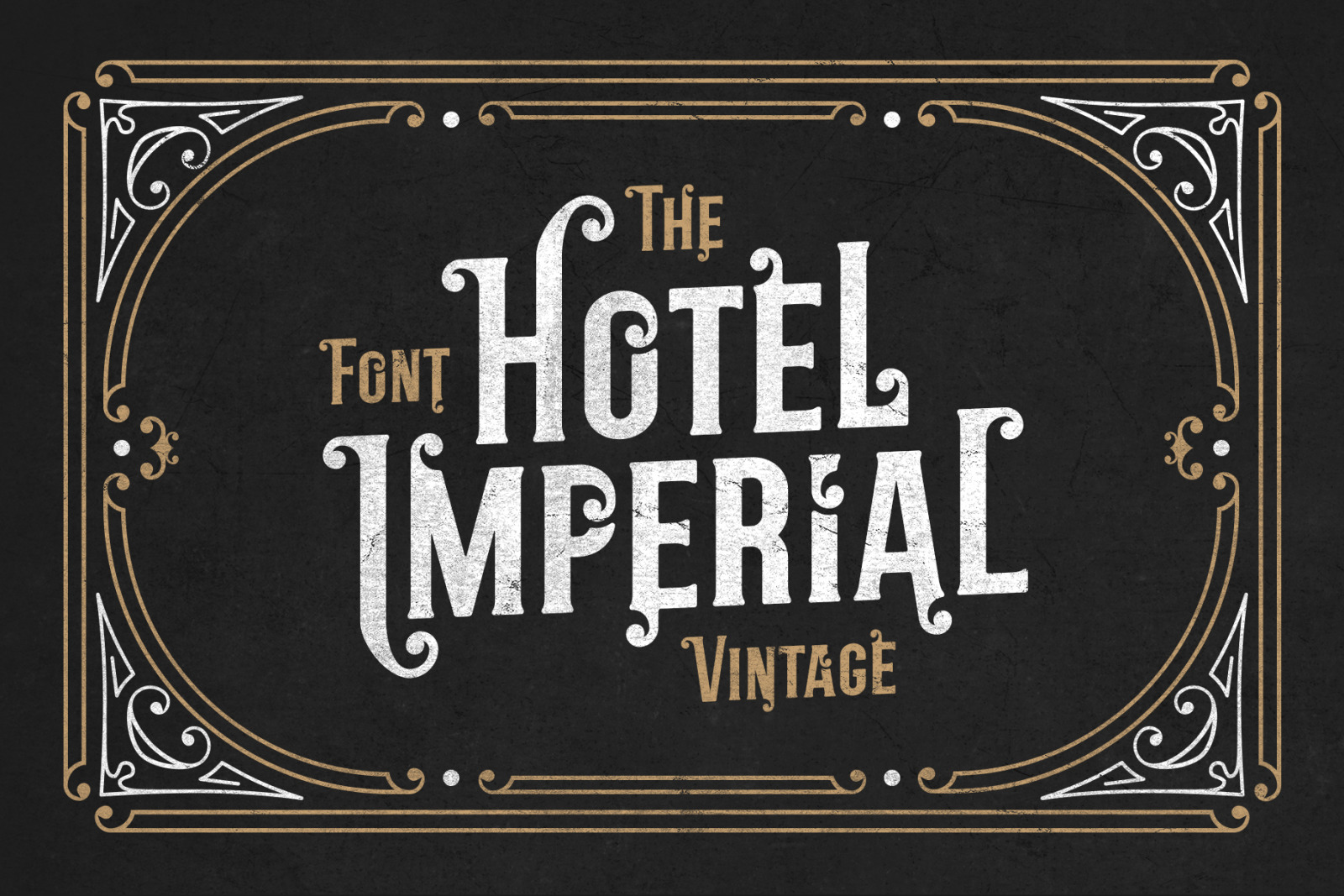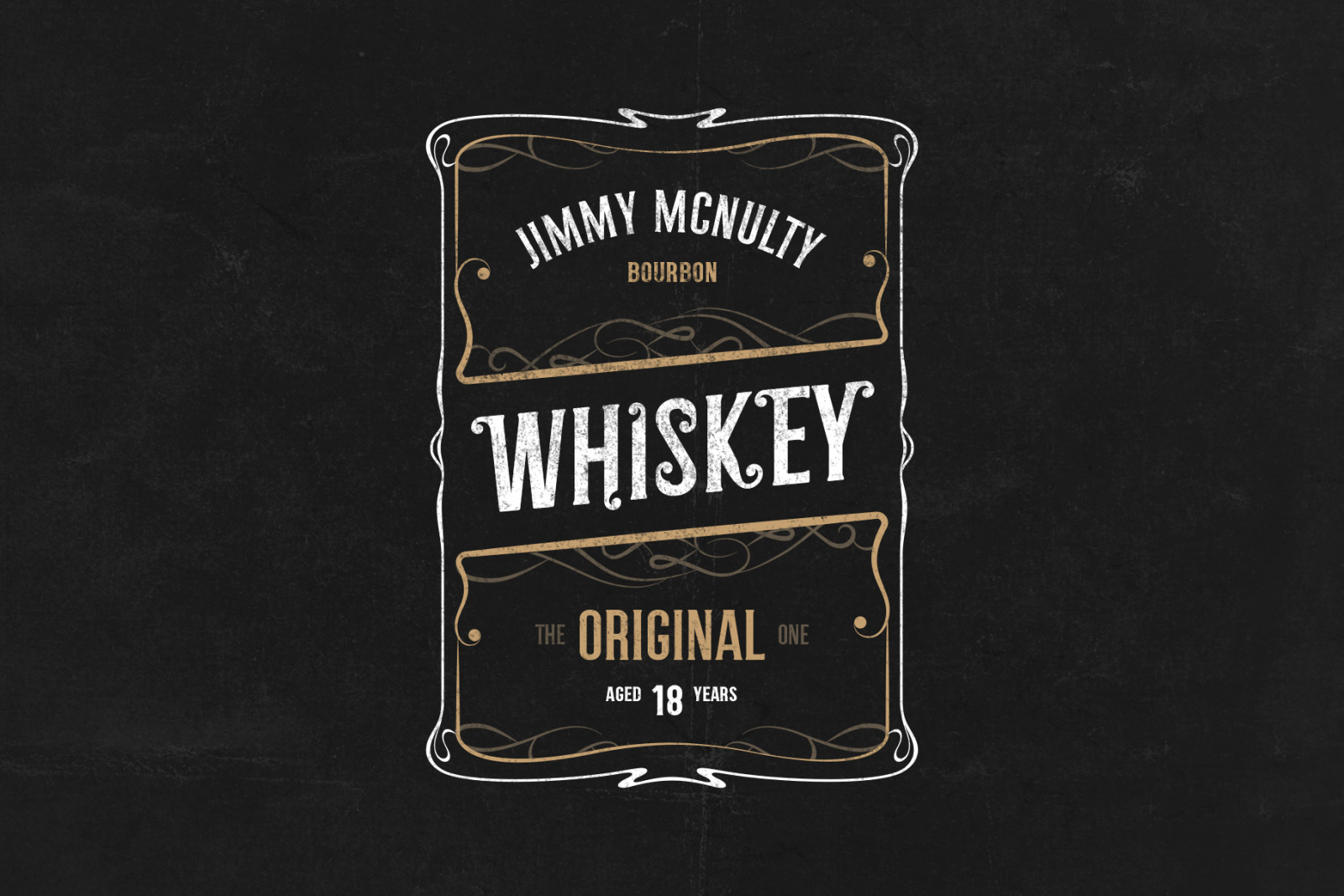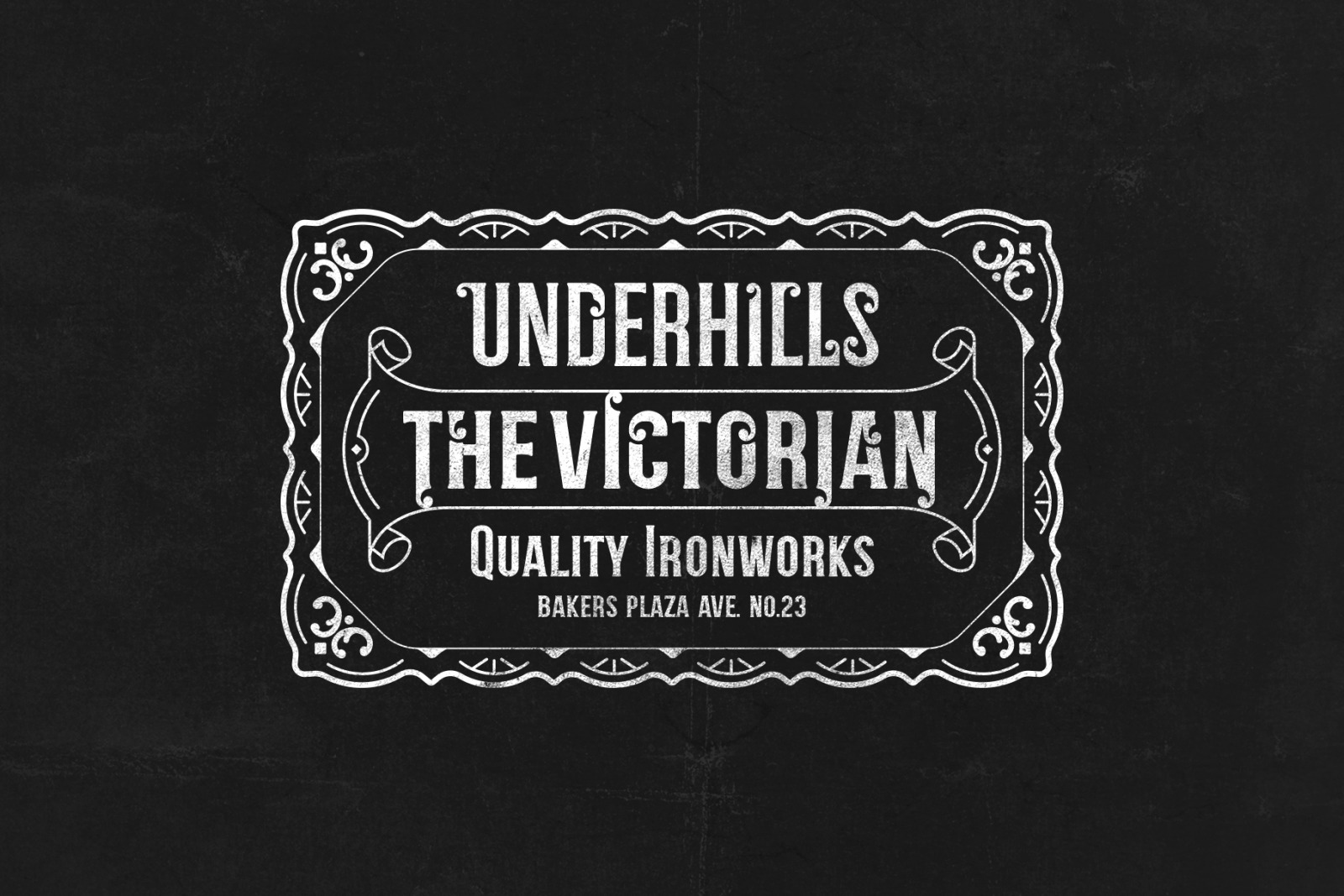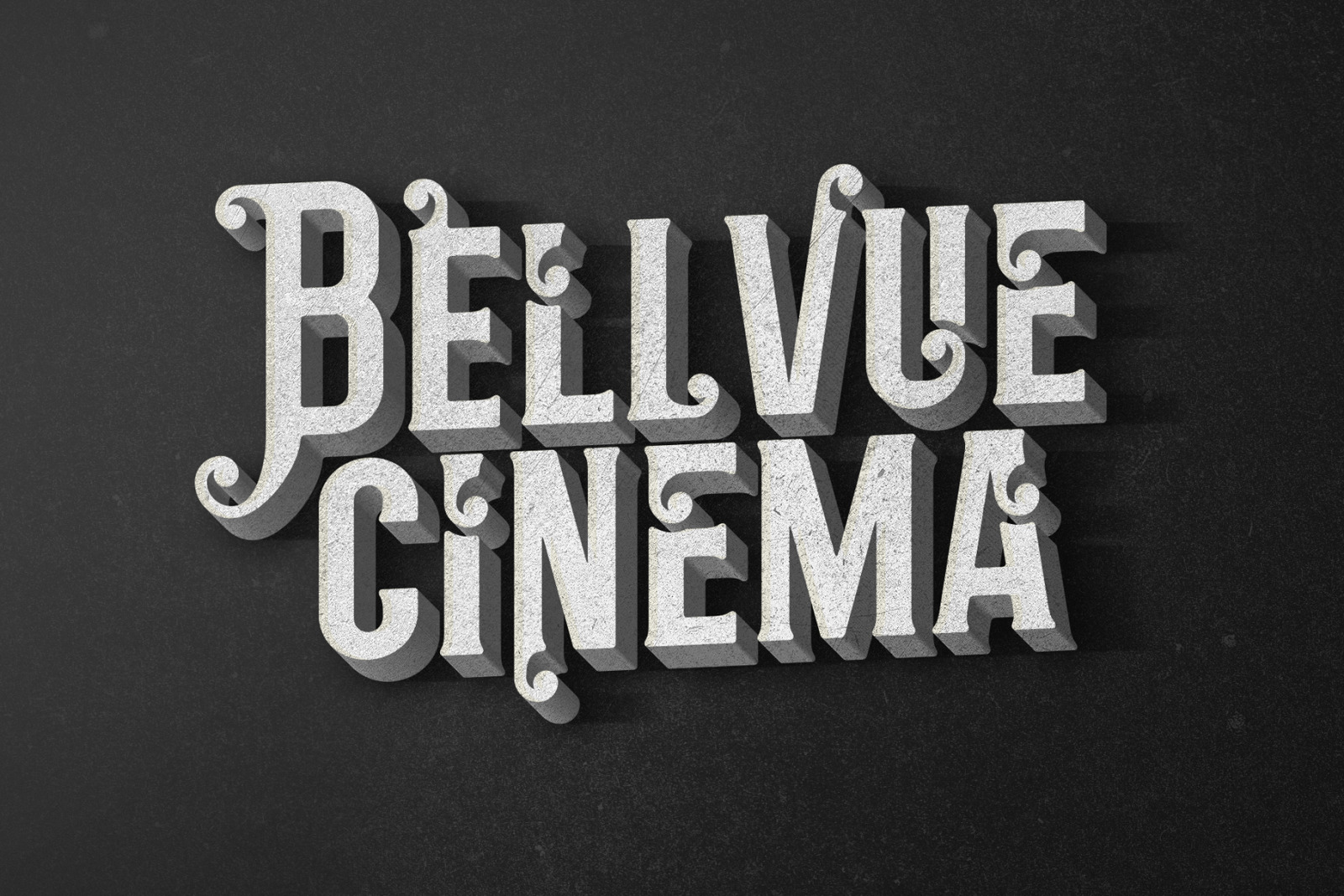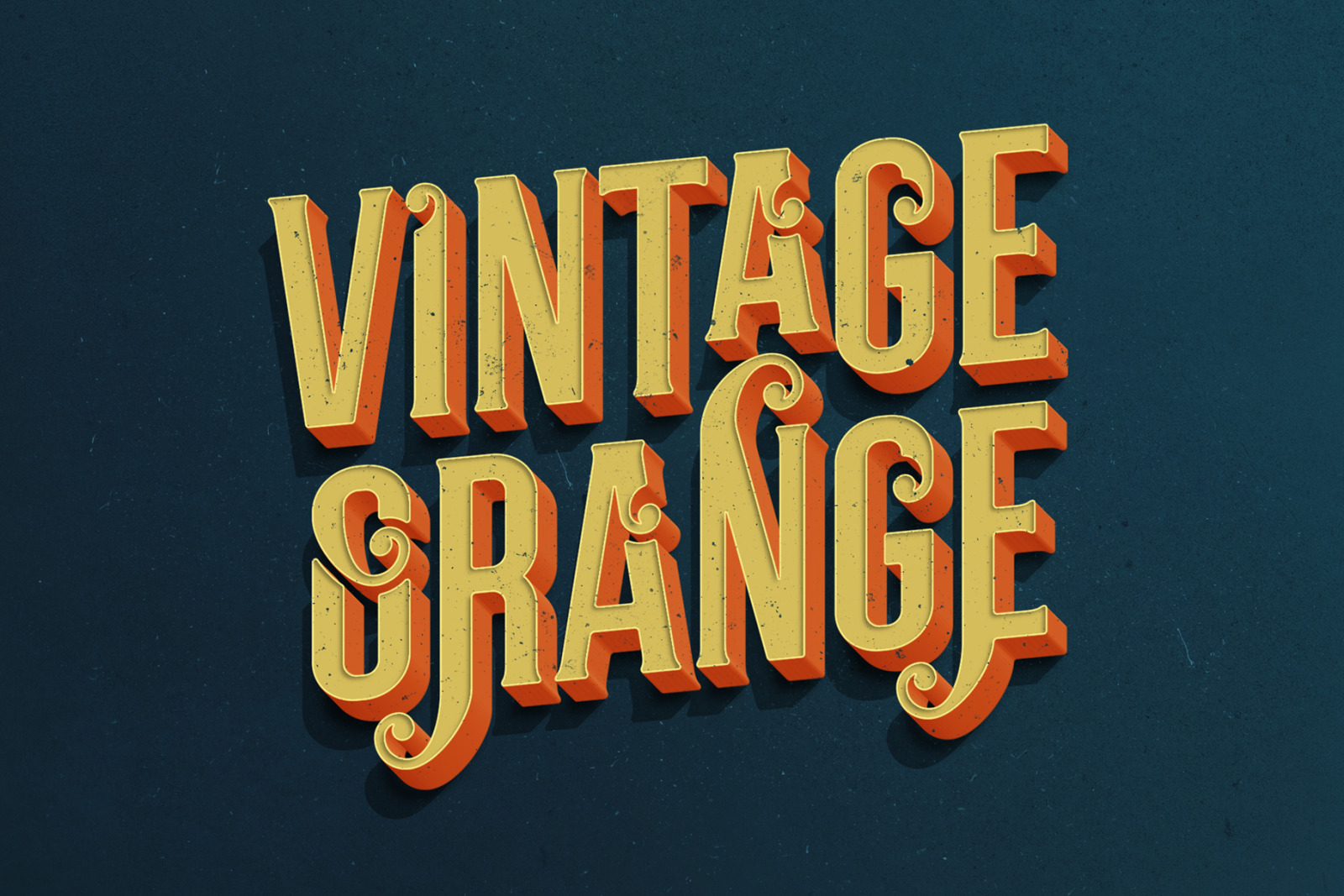
Hotel Imperial Font
Introducing Hotel Imperial, a chic and incredibly adaptable decorative serif font. With its array of alternative letters, you can effortlessly craft straightforward typography or craft stunning titles and text for your projects. The possibilities are endless!
Uppercase and lowercase
Numerals and punctuation
Alternates and ligatures